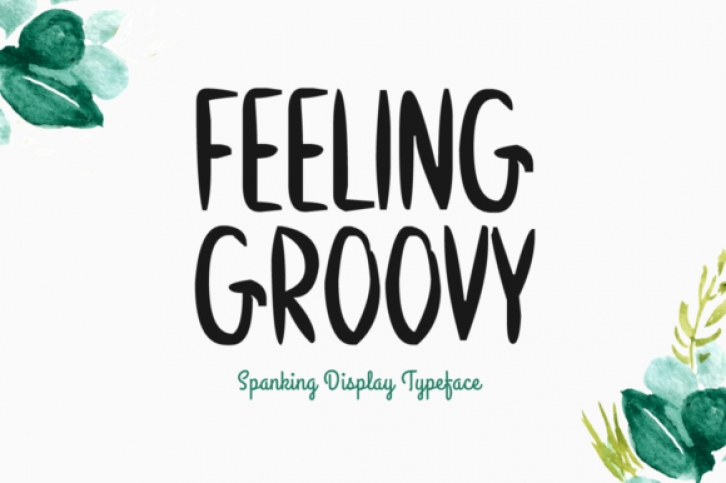
Feeling Groovy is a cute and stylish display font. Chunky characters and neat lettered, this font is incredibly versatile, fitting a wide range of contexts. Add it to your creative ideas and notice how it makes them stand out!